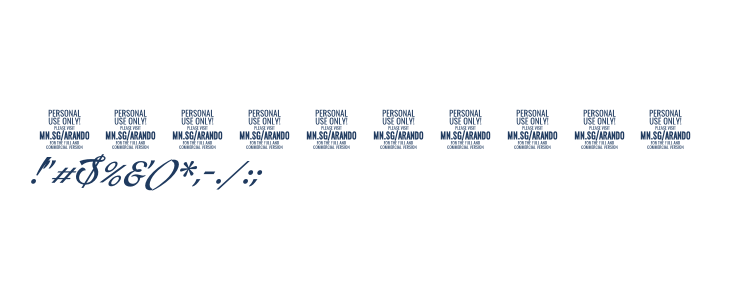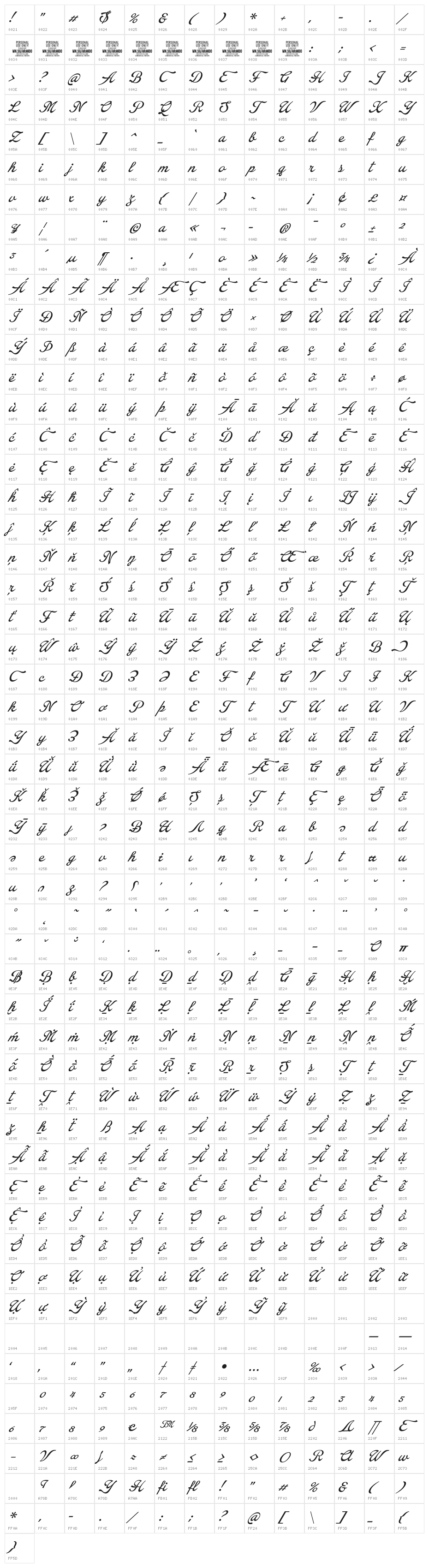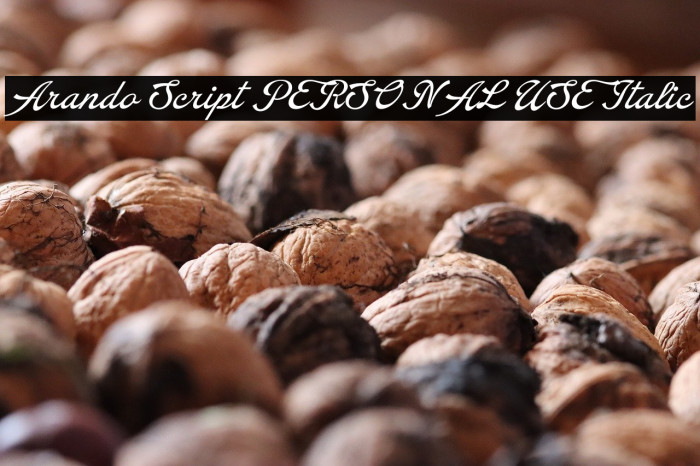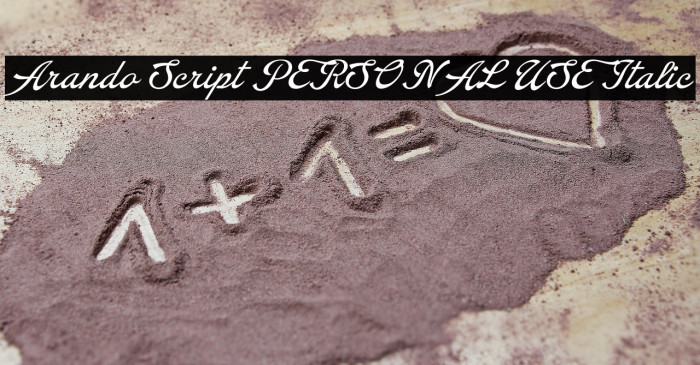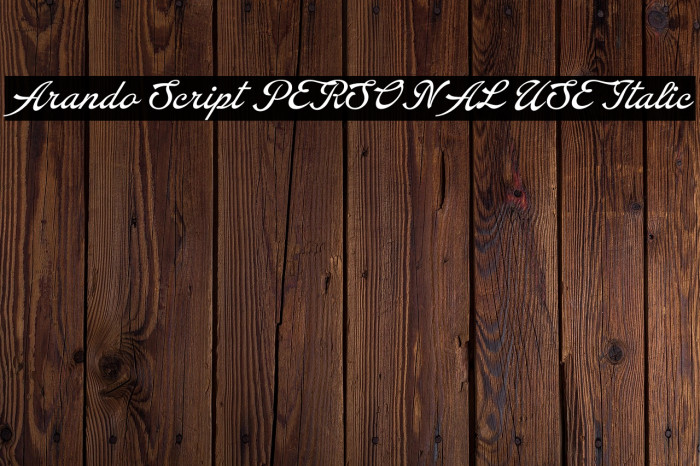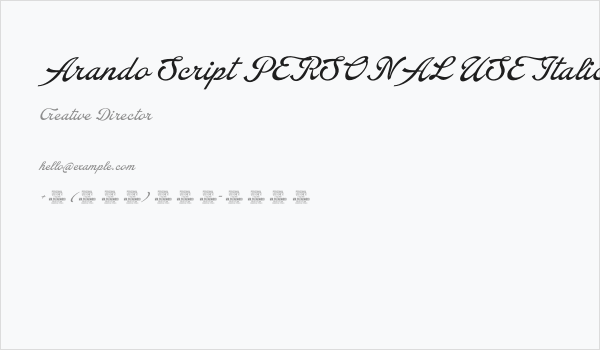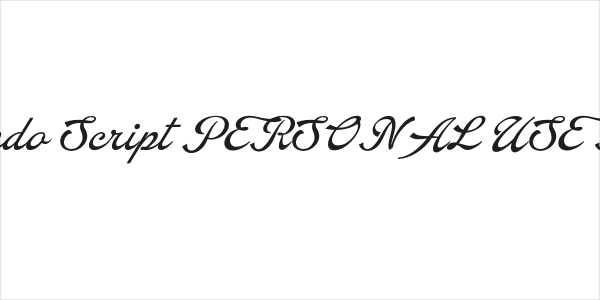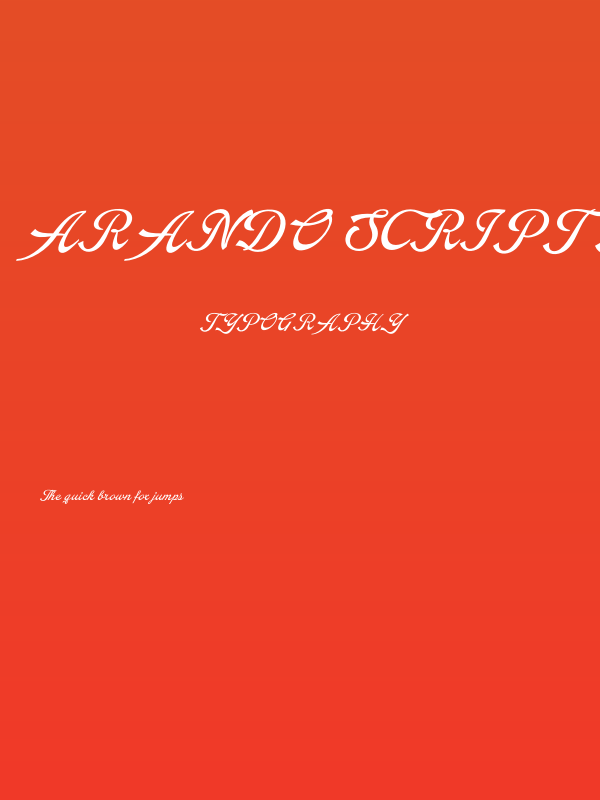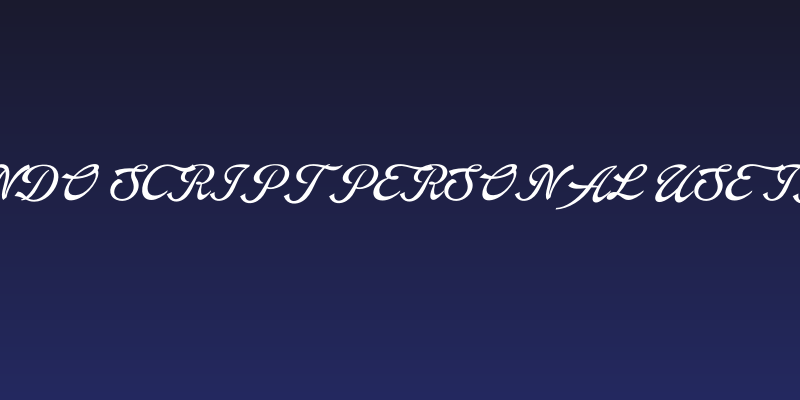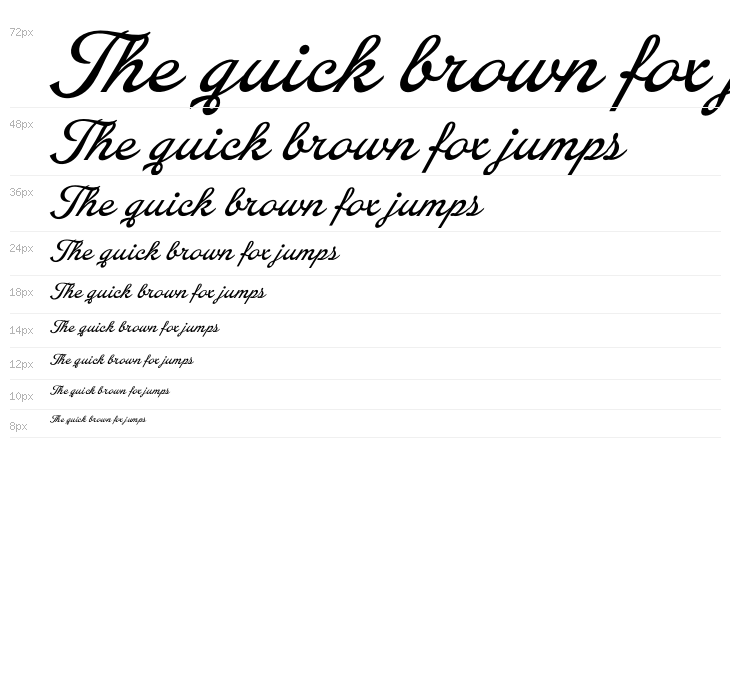
Arando Script PERSONAL USE Italic Font
Arando Script PERSONAL USE Italic Description
This elegant script font features a flowing, cursive style with smooth, connected strokes that convey a sense of sophistication and grace. The uppercase letters are ornate and slightly larger, while the lowercase letters maintain a consistent flow, enhancing readability. The font includes a full set of numerals and a variety of special characters, making it versatile for different design needs. Its italic nature adds a dynamic and stylish touch, perfect for creating an impression of elegance and refinement.